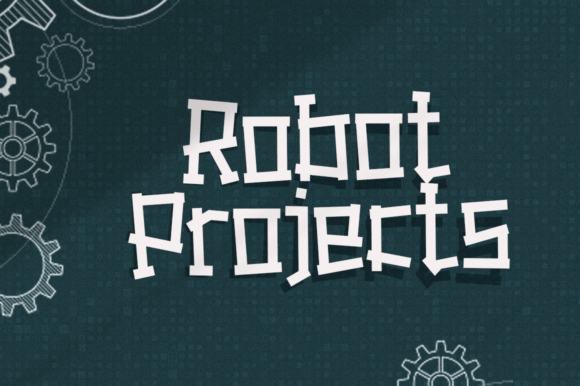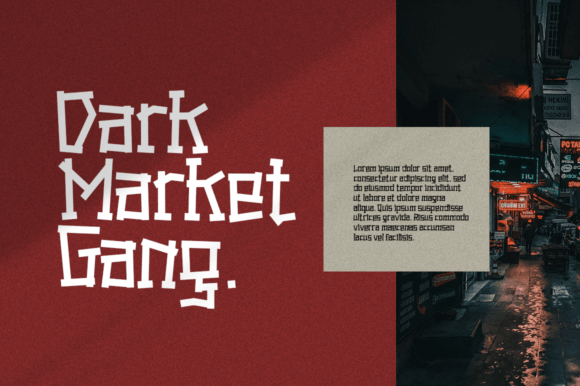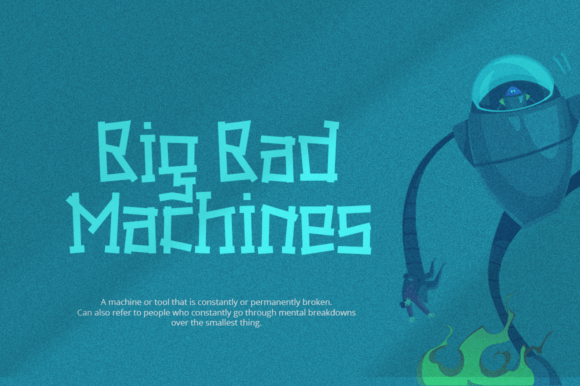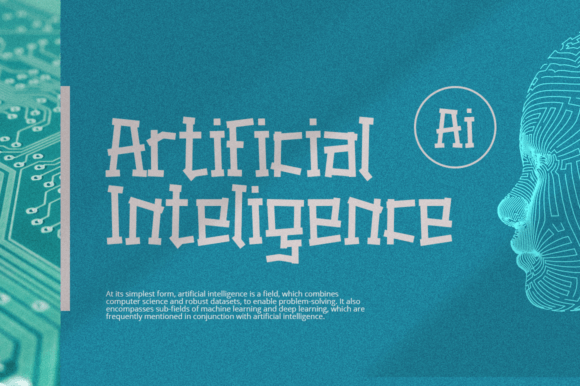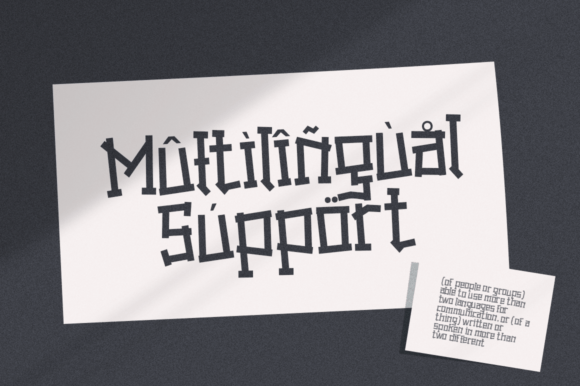
Introducing Gigabot Font: The Ultimate Hi-Tech Font for Modern Designs
In the world of design, fonts play a crucial role in conveying the message and aesthetic of a project. Whether you’re a graphic designer, a crafty DIY enthusiast, or a sci-fi movie poster creator, having the right font can make all the difference. That’s where Gigabot Font comes in – a decorative font with a unique shape inspired by robots, perfect for creating modern and hi-tech designs.
What is Gigabot Font?
Gigabot Font is a decorative font that draws inspiration from robots and futuristic designs. Its unique shape and structure give it a one-of-a-kind look that’s sure to make your designs stand out. The font is perfect for creating logotypes, sci-fi movie posters, and any other project that requires a modern and hi-tech feel.
Key Features of Gigabot Font
- Unique Robot-Inspired Shape: The font’s shape is inspired by robots, giving it a futuristic and modern look.
- Decorative and Eye-Catching: Gigabot Font is a decorative font that’s sure to grab attention and make your designs stand out.
- Multi-Language Support: The font supports multiple languages, making it perfect for designers and crafters from around the world.
- Mix and Match Uppercase and Lowercase: You can mix and match uppercase and lowercase letters to create a unique and standout logo.
Uses of Gigabot Font
Gigabot Font is versatile and can be used for a variety of projects, including:
- Logotypes: Create a unique and memorable logo for your brand or business.
- Sci-Fi Movie Posters: Add a futuristic and hi-tech feel to your movie posters.
- Graphic Designs: Use Gigabot Font to add a modern touch to your graphic designs, such as brochures, flyers, and more.
- Crafting Projects: Perfect for crafty DIY enthusiasts, Gigabot Font can be used for a variety of crafting projects, such as card making, scrapbooking, and more.
Why Choose Gigabot Font?
With so many fonts available, why choose Gigabot Font? Here are a few reasons:
- Unique and Standout Design: Gigabot Font has a unique and standout design that’s sure to make your projects stand out.
- High-Quality: The font is of high quality, making it perfect for professional designs.
Tips for Using Gigabot Font
Here are a few tips for using Gigabot Font:
- Experiment with Different Sizes: Experiment with different font sizes to find the perfect size for your project.
- Mix and Match with Other Fonts: Mix and match Gigabot Font with other fonts to create a unique and interesting design.
- Use it for Headings: Use Gigabot Font for headings and titles to add a modern and hi-tech feel to your designs.
| Font Name | Gigabot Font |
| Author | Grontype |
Gigabot Font is a unique and decorative font that’s perfect for designers and crafters looking to add a modern and hi-tech feel to their projects. With its robot-inspired shape, multi-language support, and mix-and-match uppercase and lowercase feature, Gigabot Font is sure to make your designs stand out. Whether you’re creating a logotype, sci-fi movie poster, or graphic design, Gigabot Font is the perfect choice.